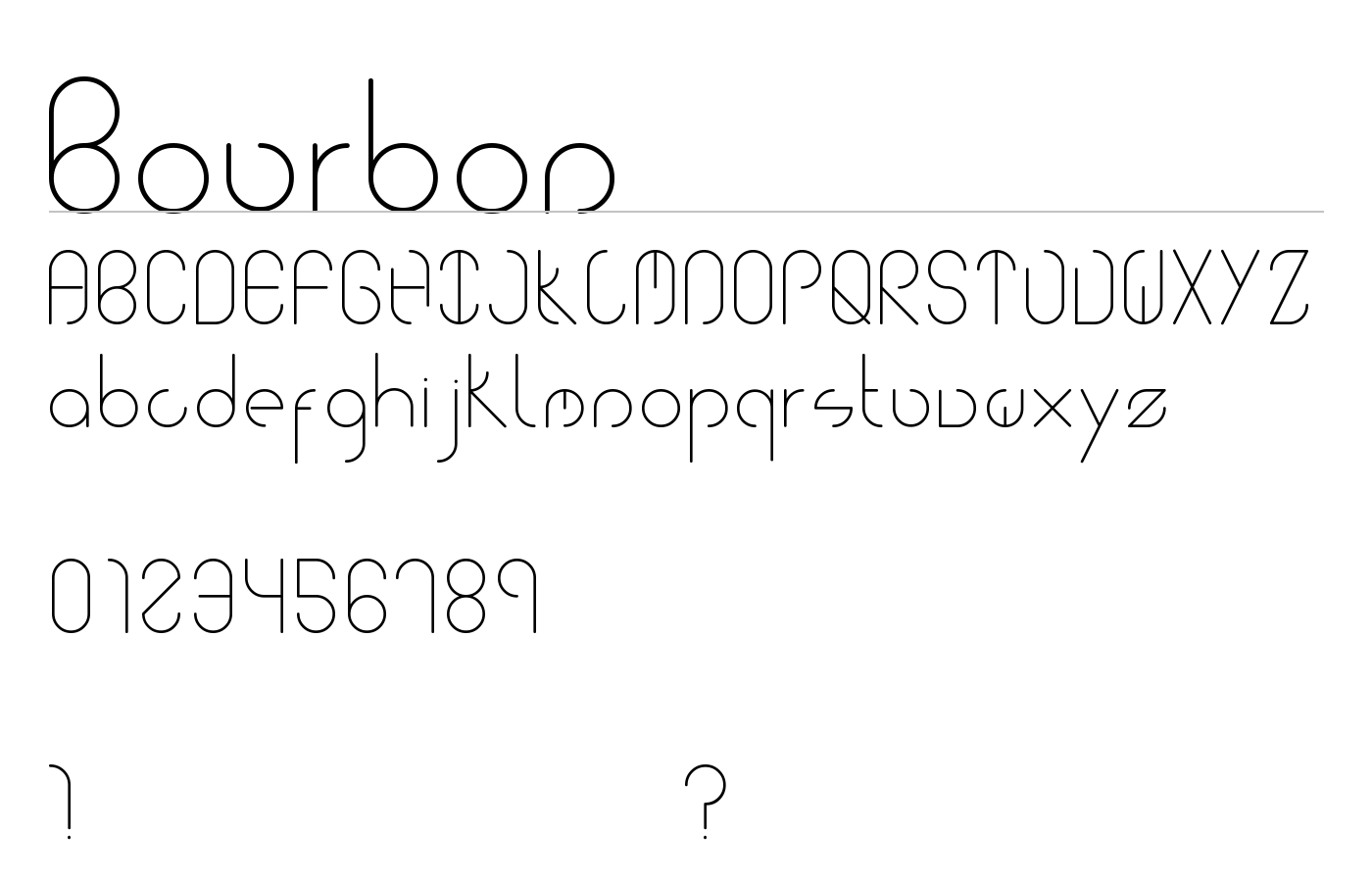
Bourbon is a delicate, modern sans serif font with a very light weight and geometric structure that features clean, thin lines and rounded forms. Its unique letter shapes and open, airy design lend it a playful yet elegant personality, making it ideal for creative branding, stylish logos, and contemporary editorial work where a distinctive, minimalist look is desired.
Bourbon Font